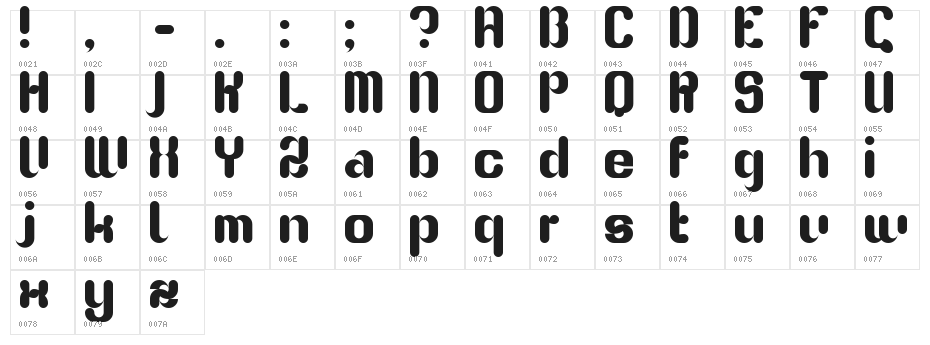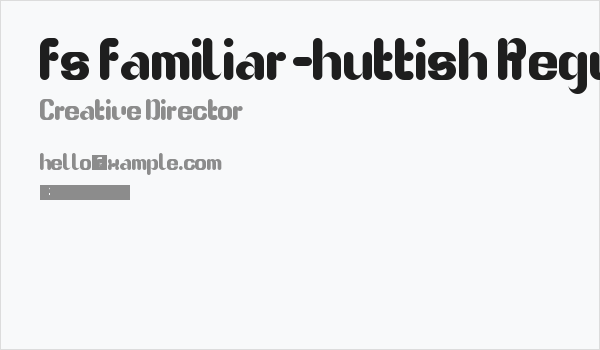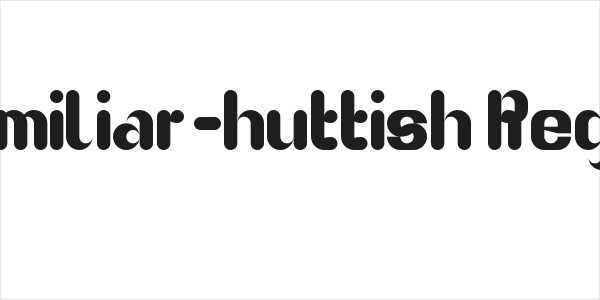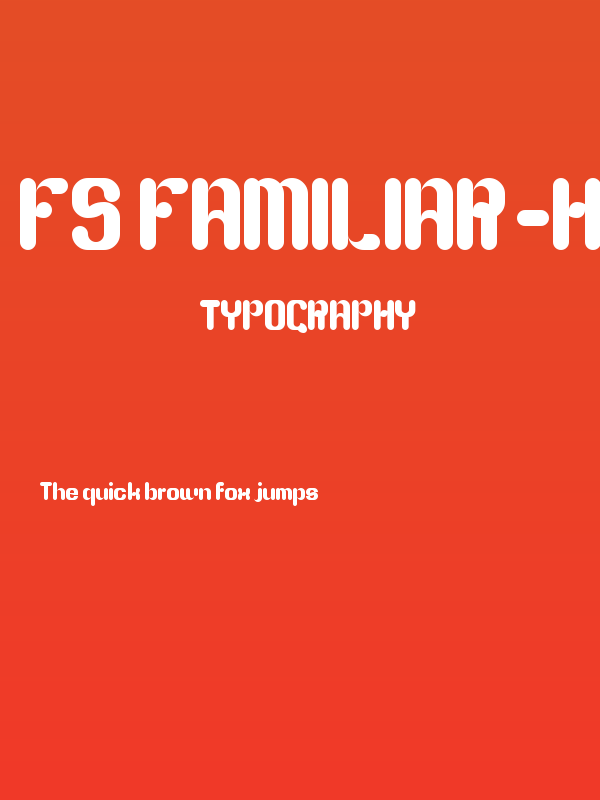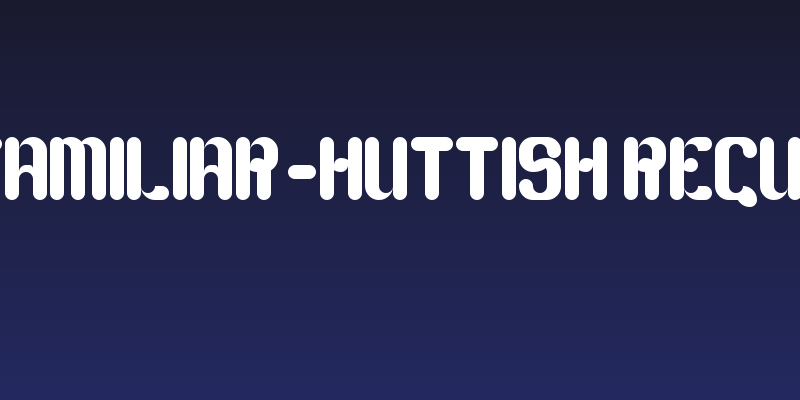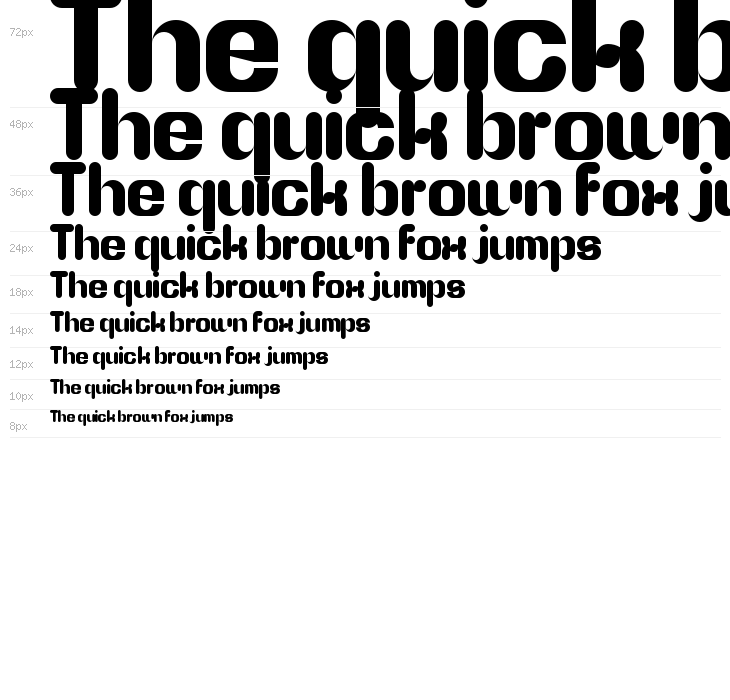
fs familiar-huttish Regular Font
fs familiar-huttish Regular Description
This font features a bold and rounded style with a unique, futuristic appearance. The characters are designed with thick strokes and rounded edges, giving them a soft yet impactful look. The uppercase and lowercase letters maintain a consistent width, creating a uniform appearance across the text. The numbers and special characters follow the same design principles, ensuring cohesion throughout. This font's playful and modern aesthetic makes it suitable for creative projects that require a distinctive and eye-catching typeface.
| Proposed Projects | Ideal for branding, posters, video game graphics, and sci-fi themed designs. |